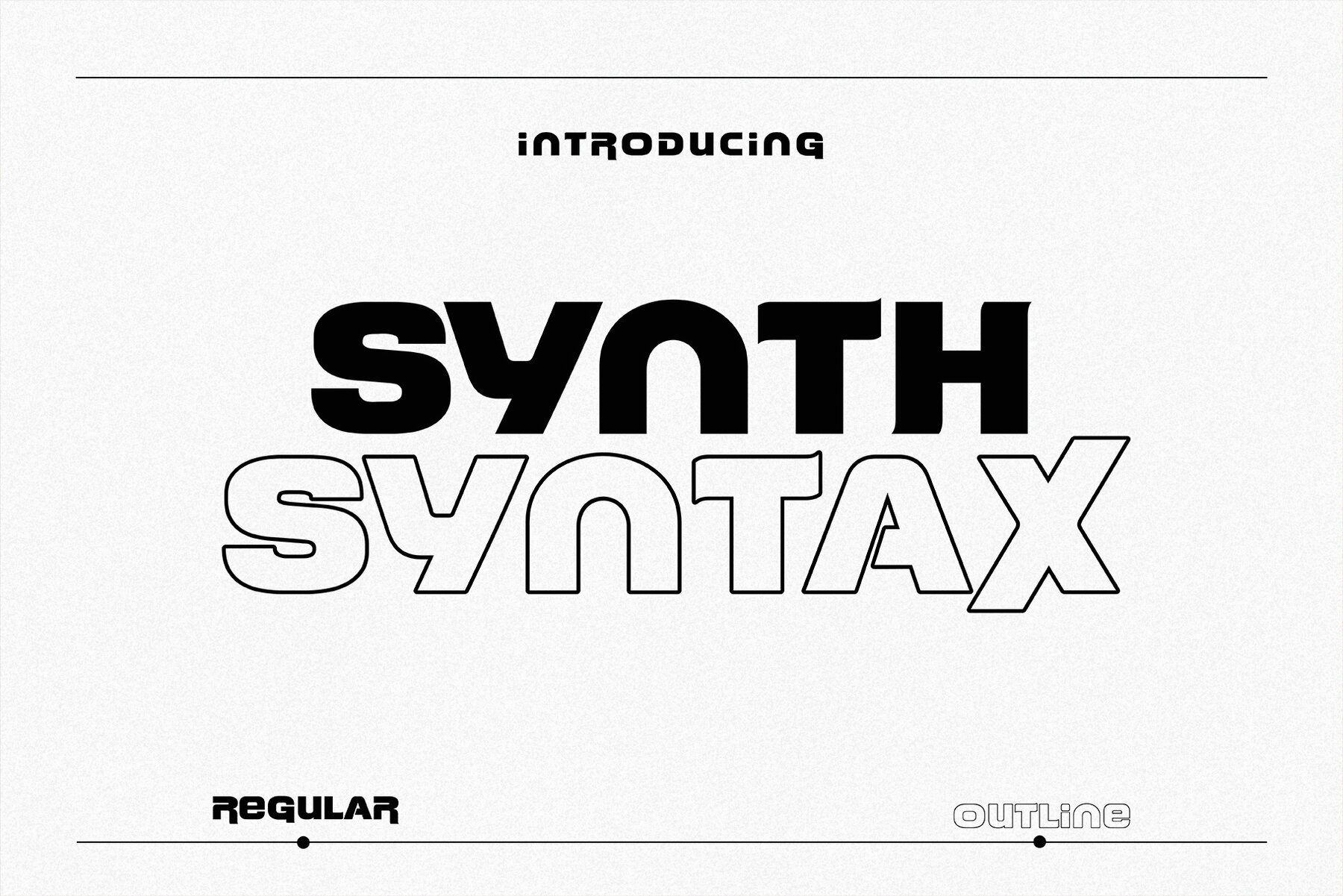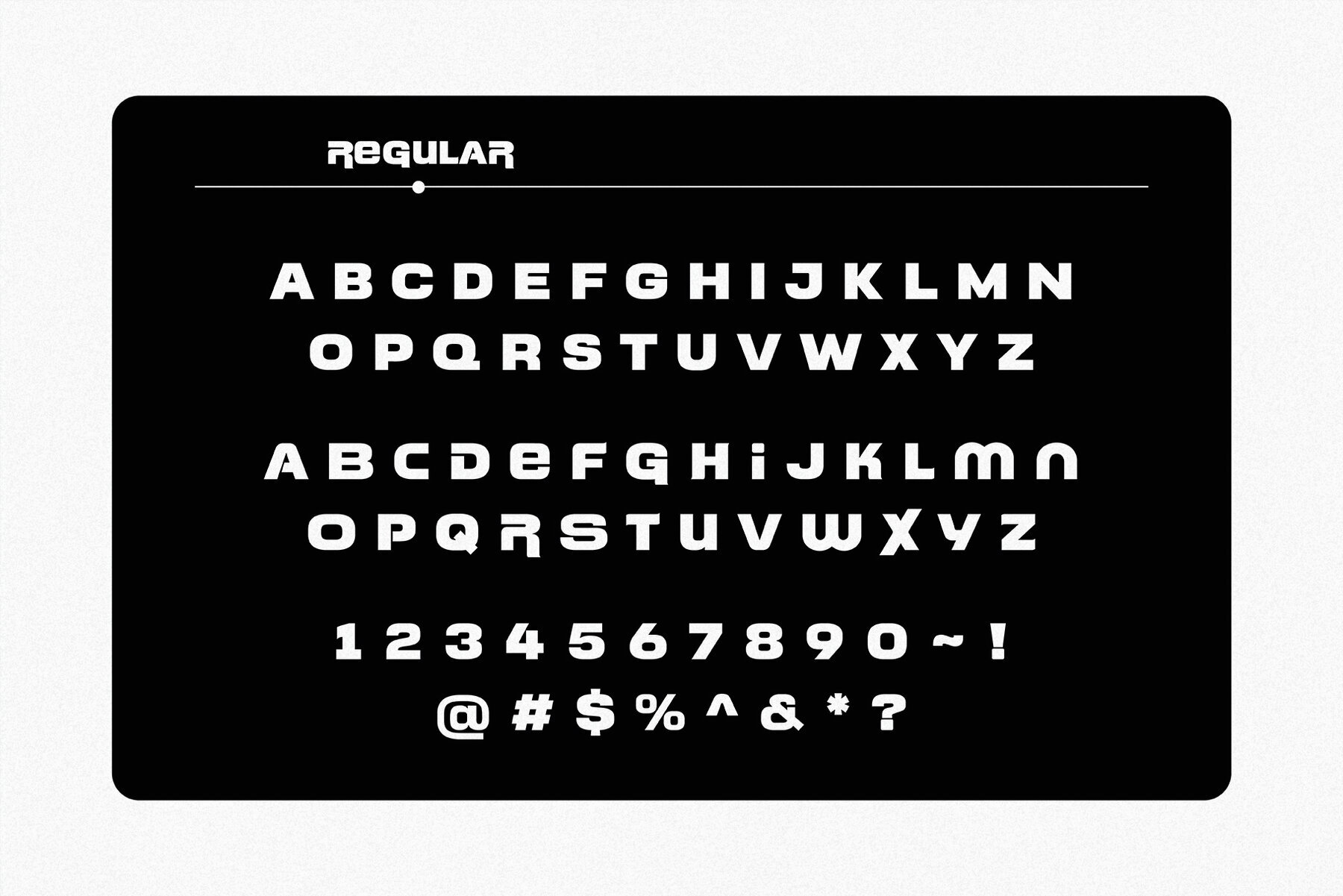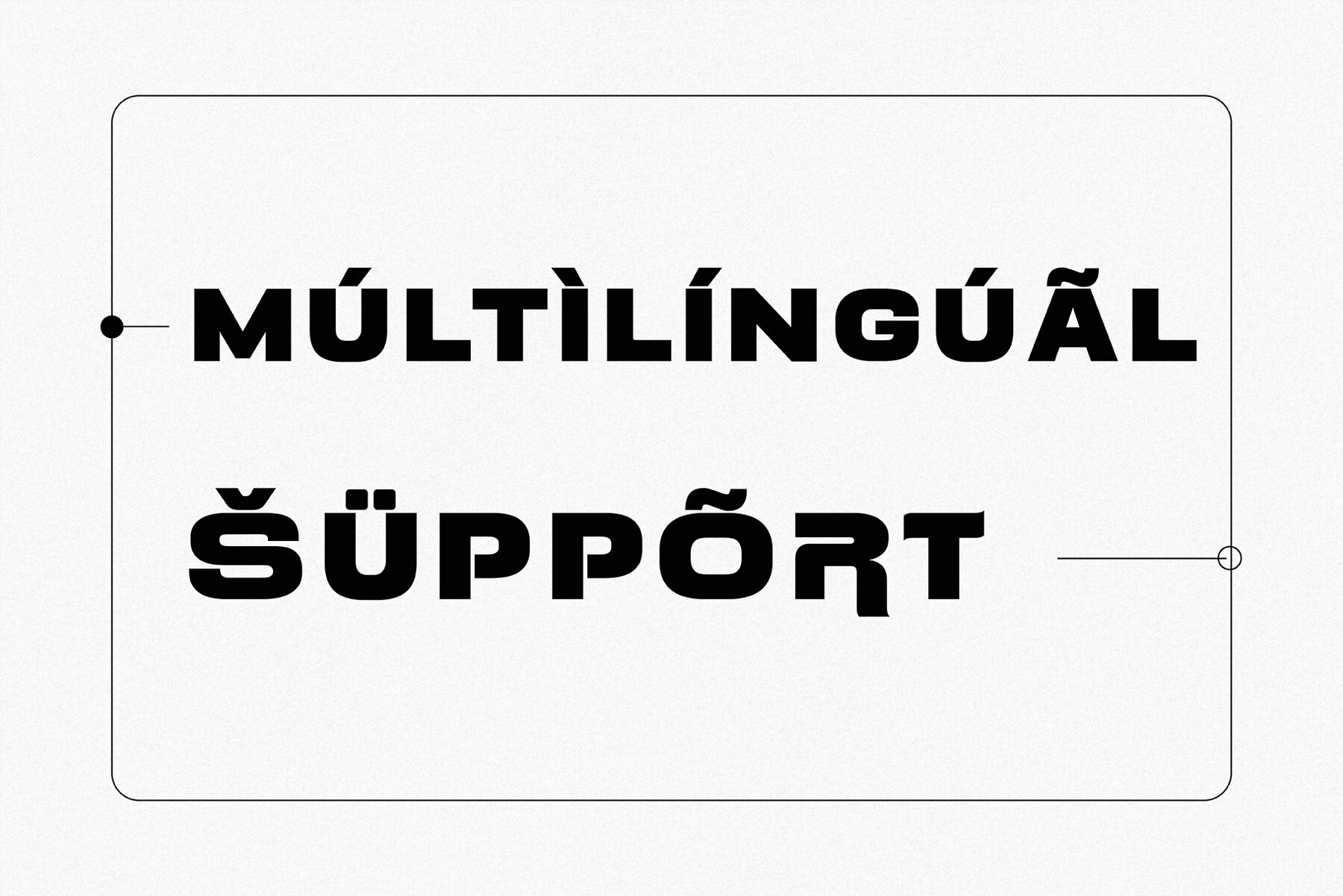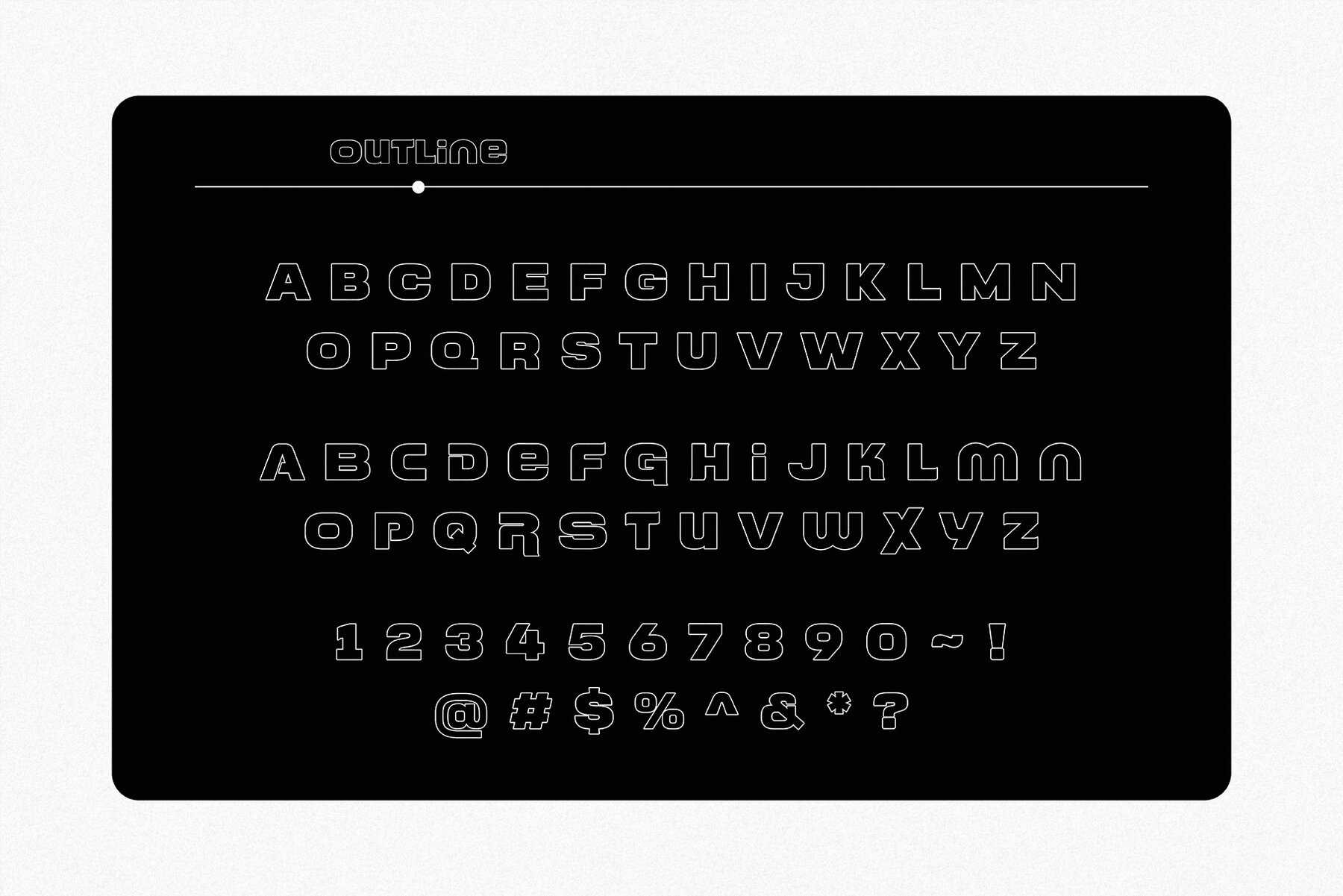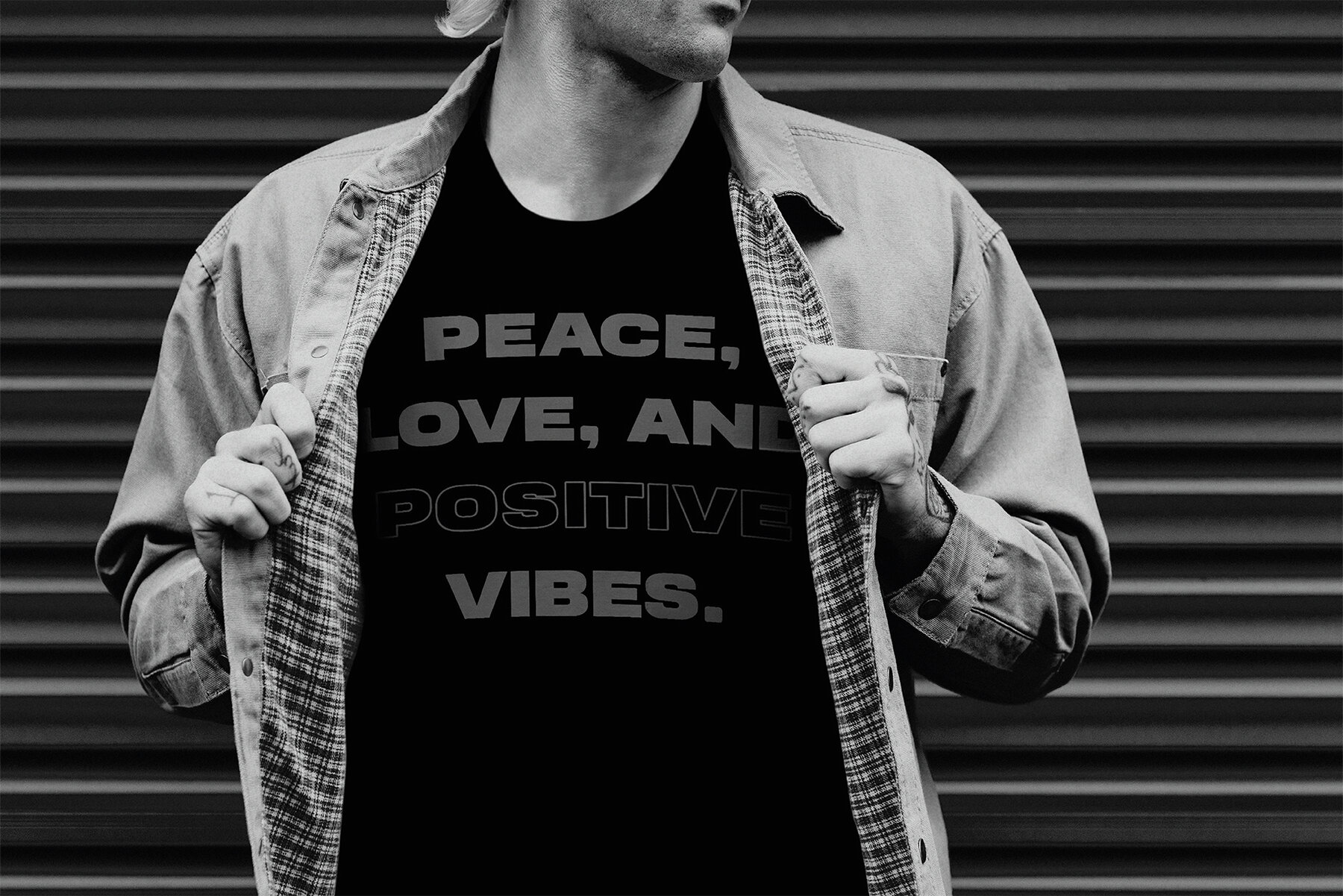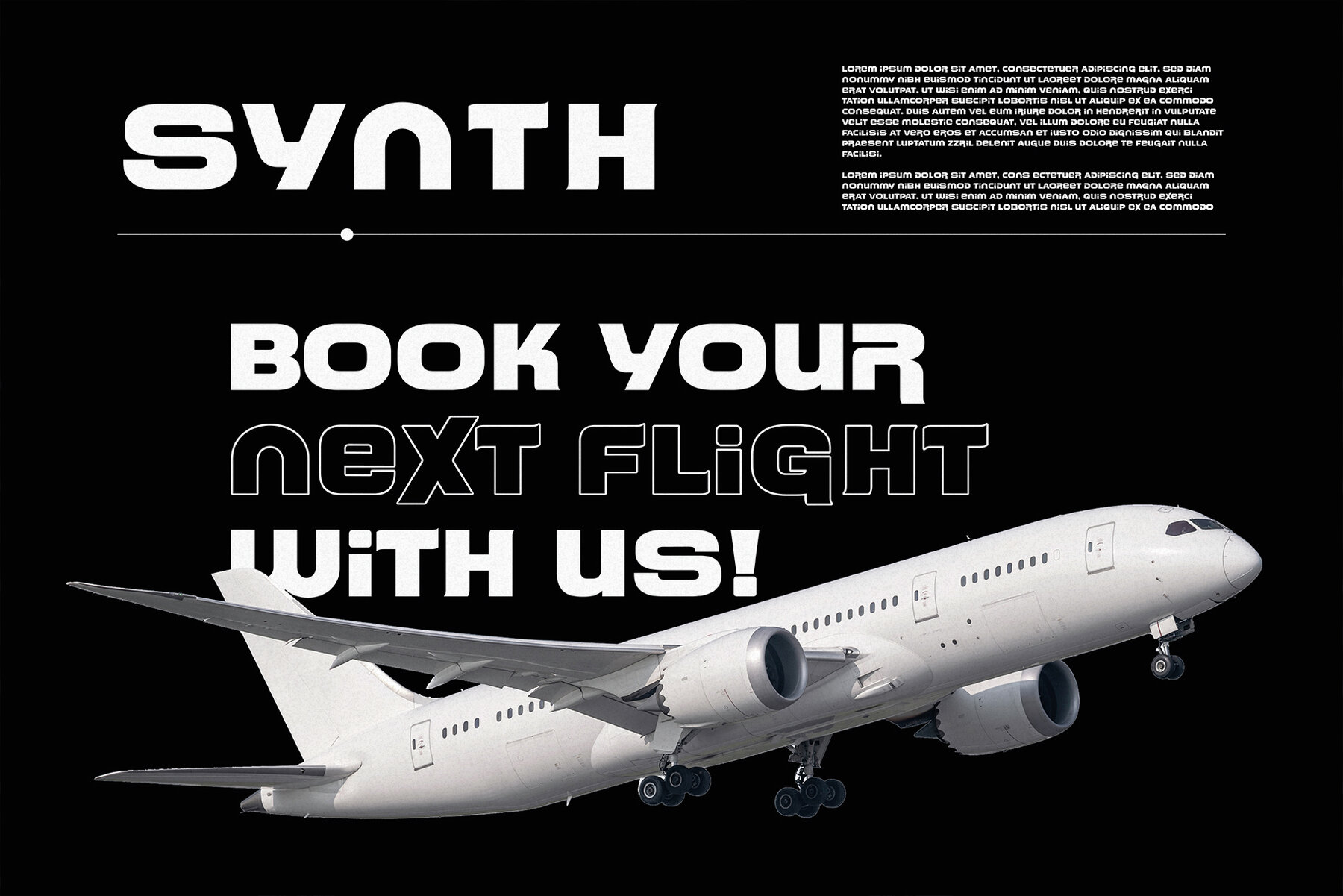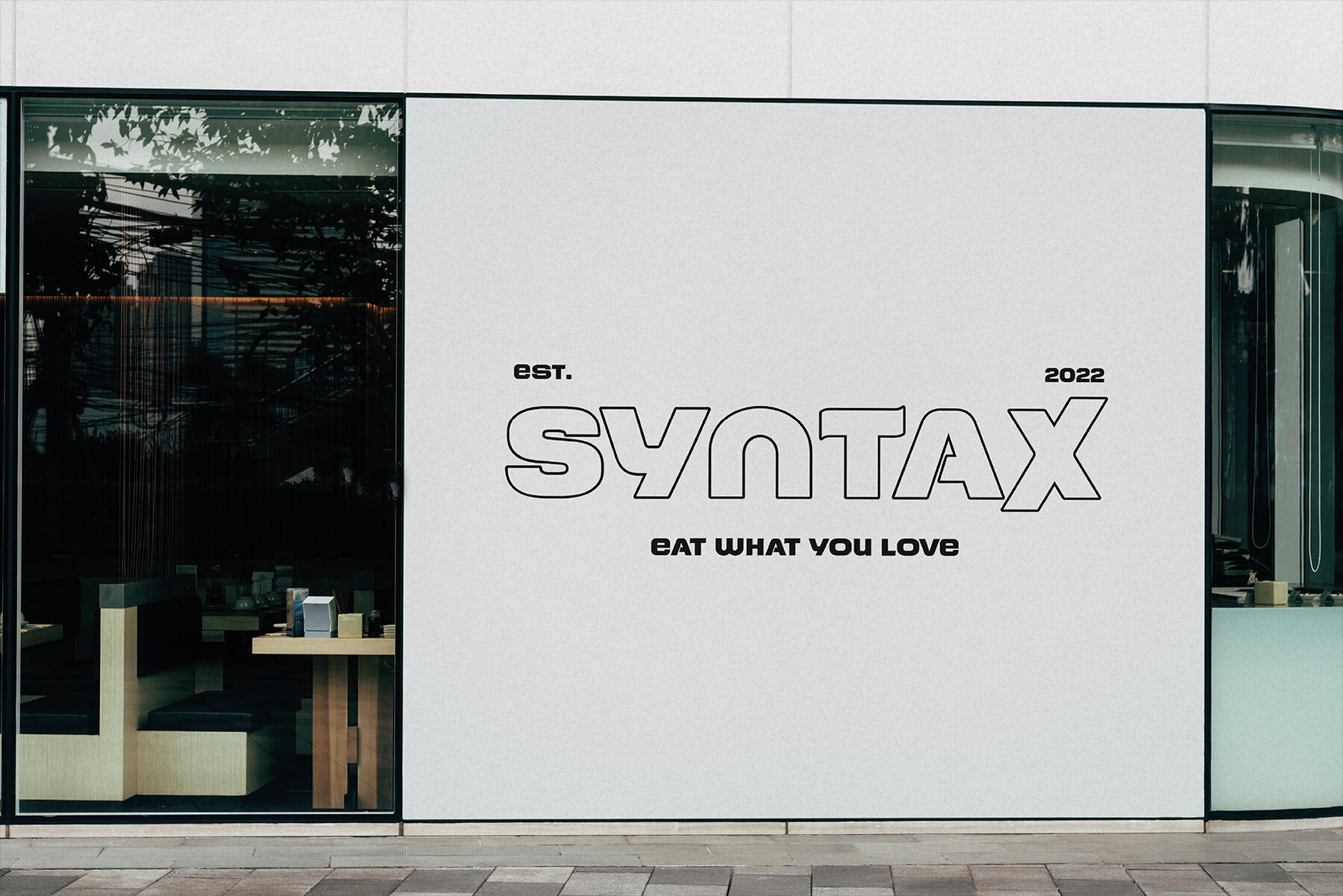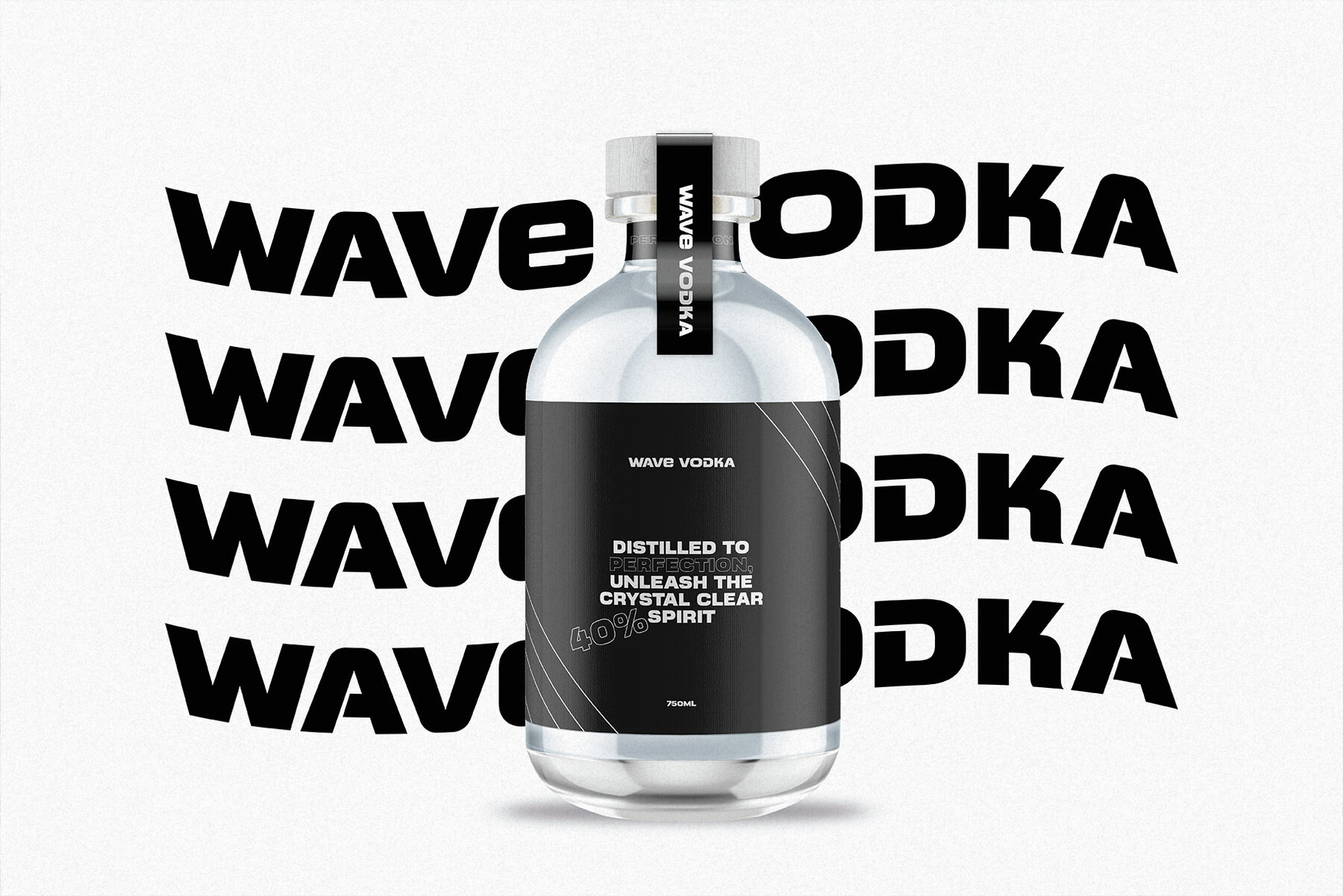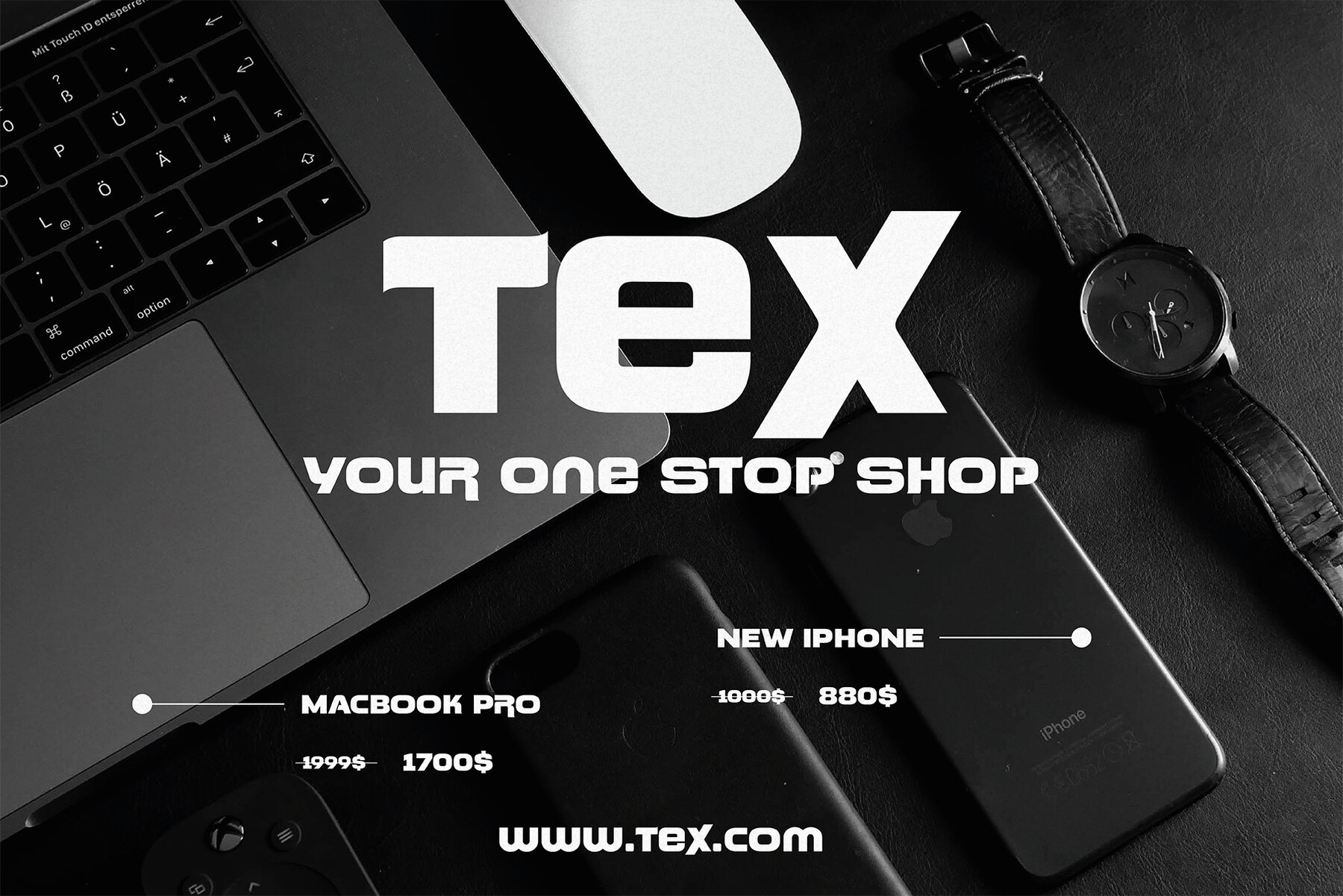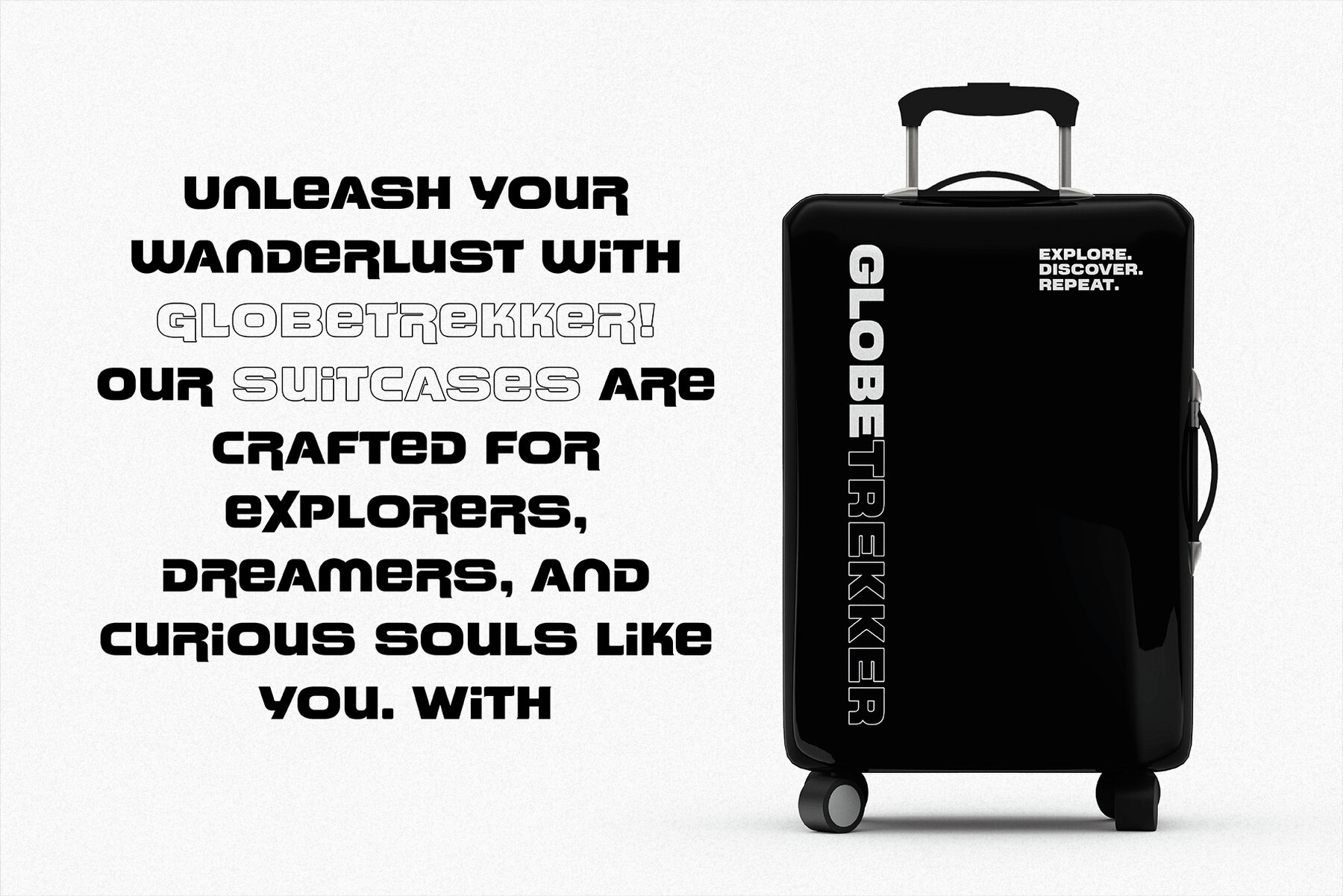
SynthSyntax Font
Introducing SynthSyntax, the epitome of modern streetwear typography that’s poised to become your design secret weapon. This edgy typeface seamlessly blends contemporary design sensibilities with a dash of retro charm, offering both regular and outline versions to cater to your every creative whim. SynthSyntax empowers you to infuse your projects with a fresh, urban aesthetic that’s bound to turn heads and spark conversations. Its bold strokes and sleek lines evoke a sense of artistic rebellion, making it the perfect choice for logos, posters, branding, or any project that demands a dose of unconventional style. With its regular and outline variants, you’ll have the creative flexibility to switch between sleek minimalism and bold impact, all while staying true to the hipster ethos. Don’t miss the opportunity to elevate your designs with SynthSyntax’s unique blend of contemporary coolness and modern flair. Download it today and make your projects the epitome of hip, chic, and downright unforgettable.